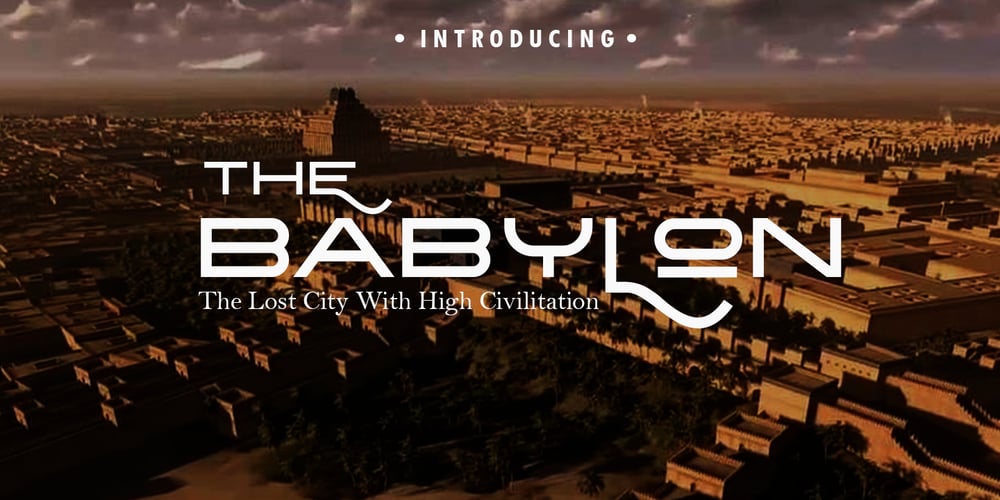
Babylon Font Family was designed by Sarwo Edhi Prayitno and published by Haksen. Babylon contains 5 styles and family package options. Babylon is a playful and elegant family, perfect for branding projects, headlines, posters and packaging also for logos! Primarily it is characterized by a modern look with straight shapes, but on closer view, one sees a wide range of alternate characters, as well as five style typeface! Furthermore it is a unicase typeface, all of the Babylon play with uppercase initials. Babylon is 5 Weights (Regular โ Outline) Character set A-Z with uppercase with some special alternate options Numerals & Punctuation Multilingual support language characters Feel free to convert the fonts to web fonts for your personal/business website If you still have questions, just send me a message and I’m happy to help ๐ Thank you, Haksen